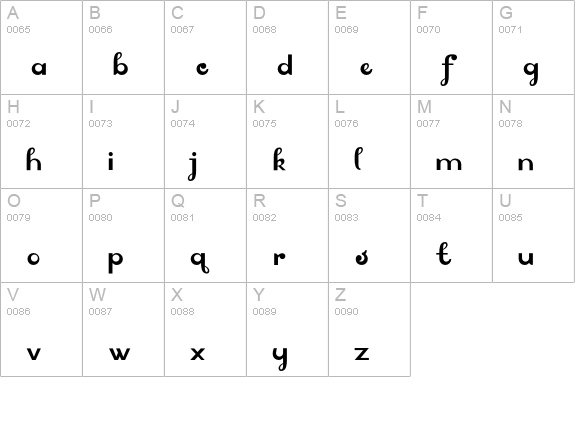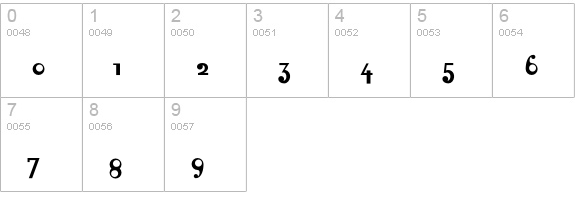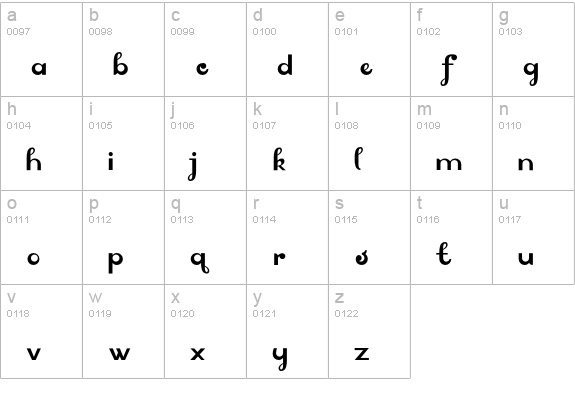
Pussy font is a playful and stylish typeface that brings a touch of whimsy to your design projects. This font features elegant curves and unique letterforms that make it stand out from the crowd. With its charming aesthetic, Pussy font is perfect for adding a hint of creativity to various design applications. The best part? Pussy font is completely free to download at FontsMarket.com! This means you can easily access this delightful typeface and use it in your projects without any cost. Whether you're working on a branding project, poster design, or any other creative endeavor, Pussy font is sure to add a fun and eye-catching element to your work. Download Pussy font today and let your creativity soar!